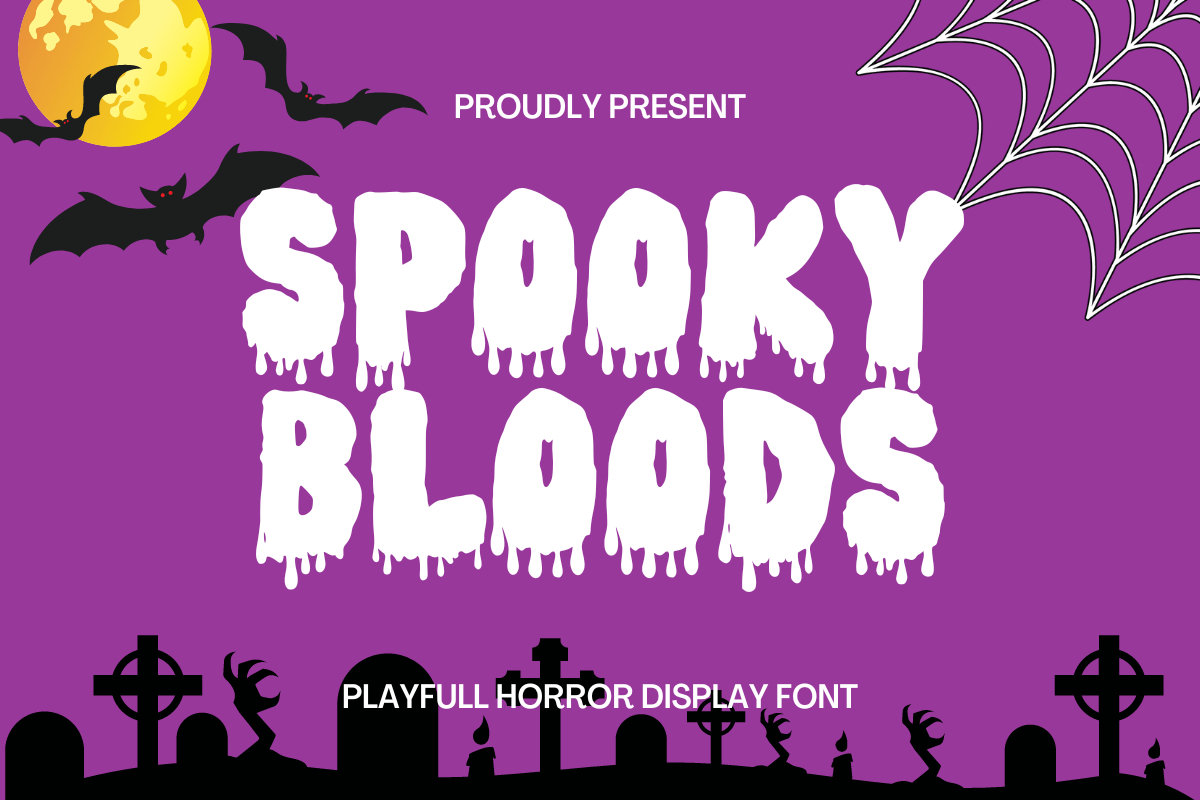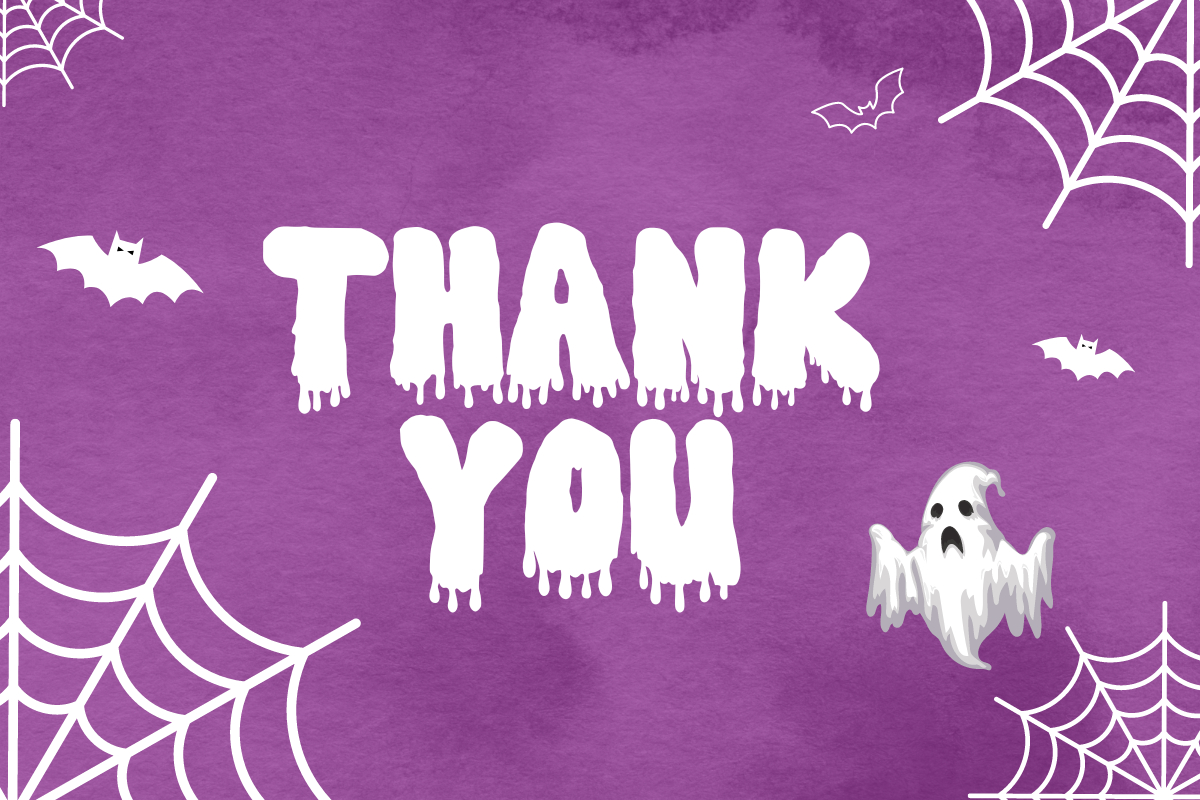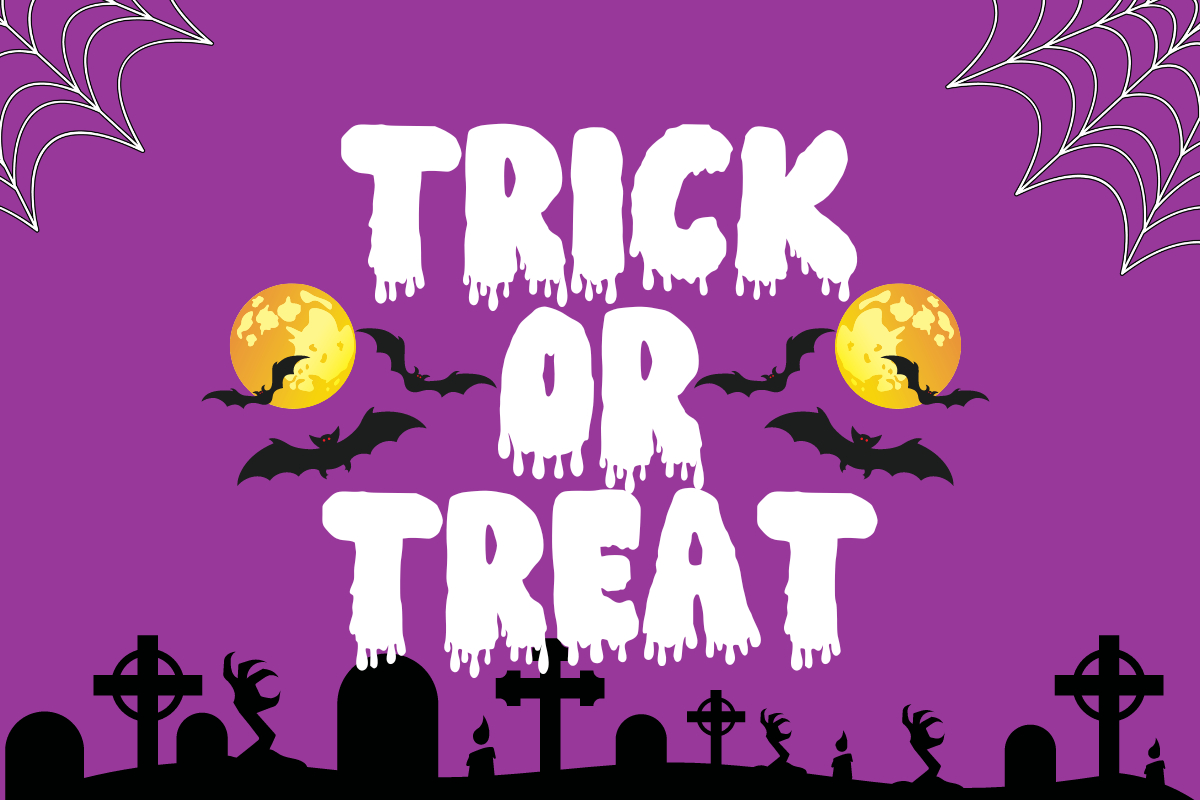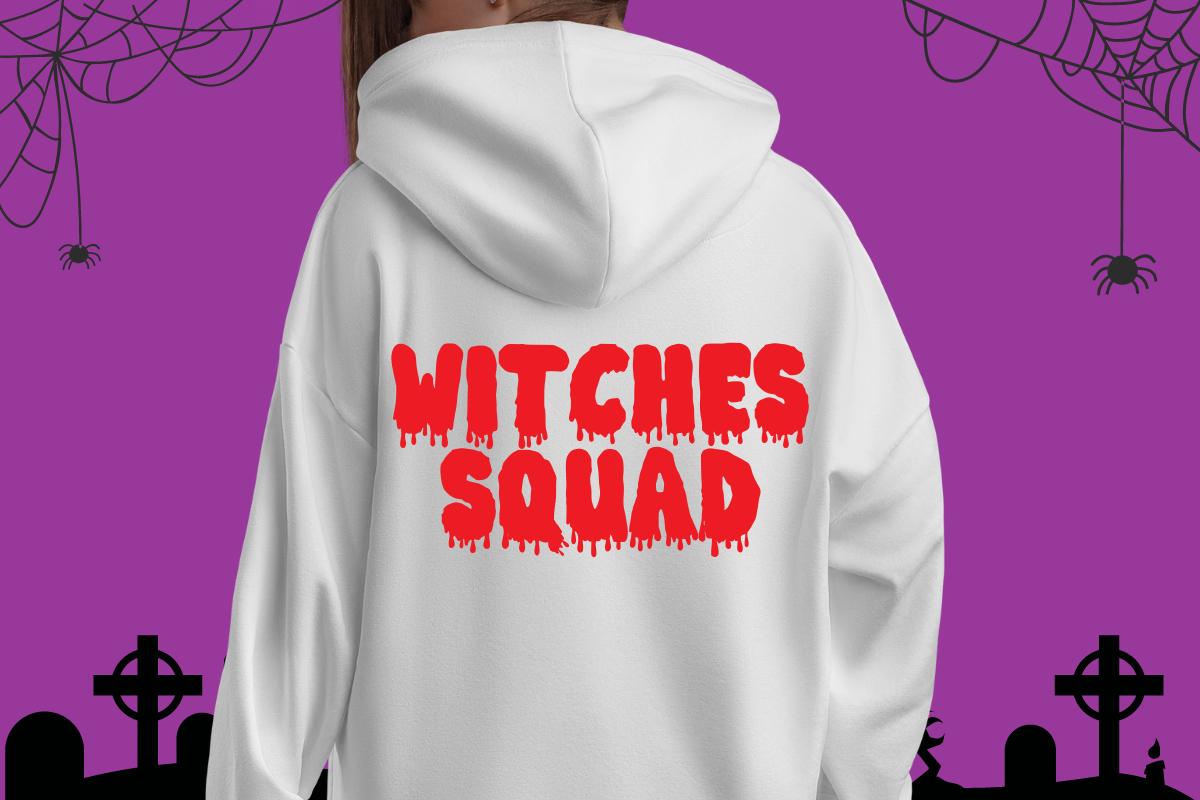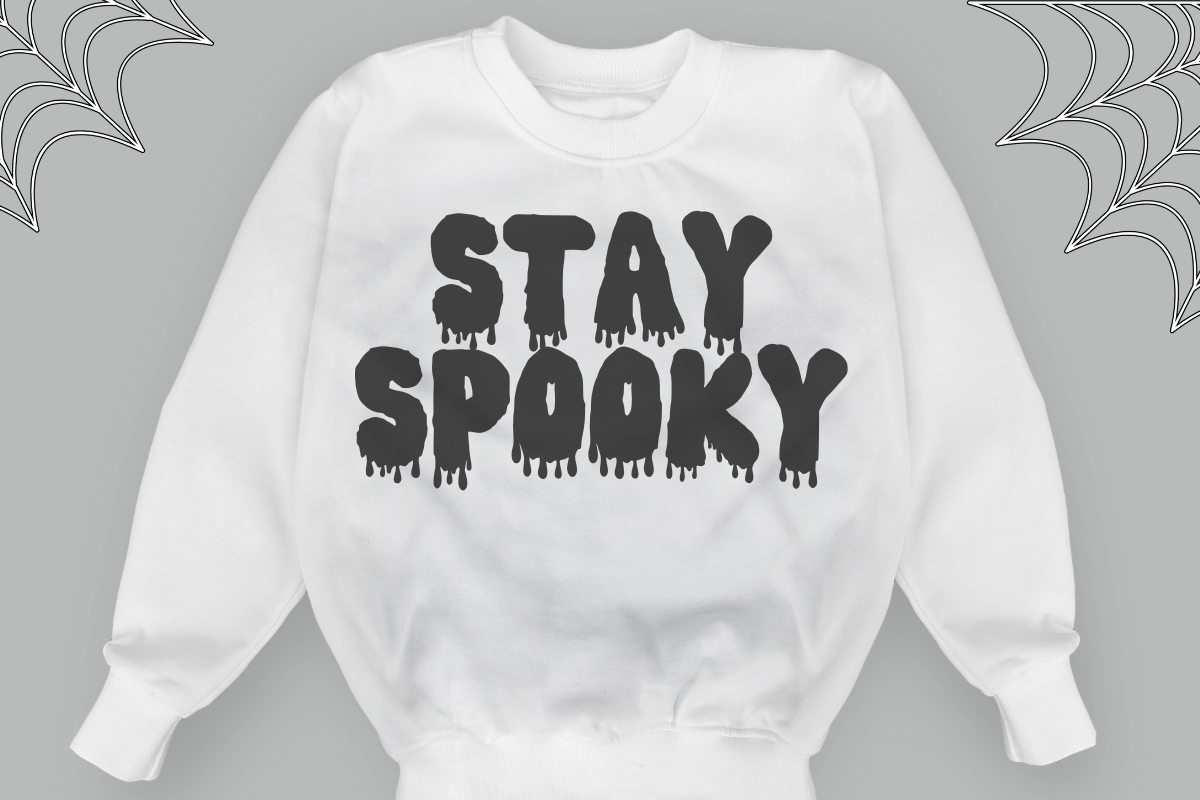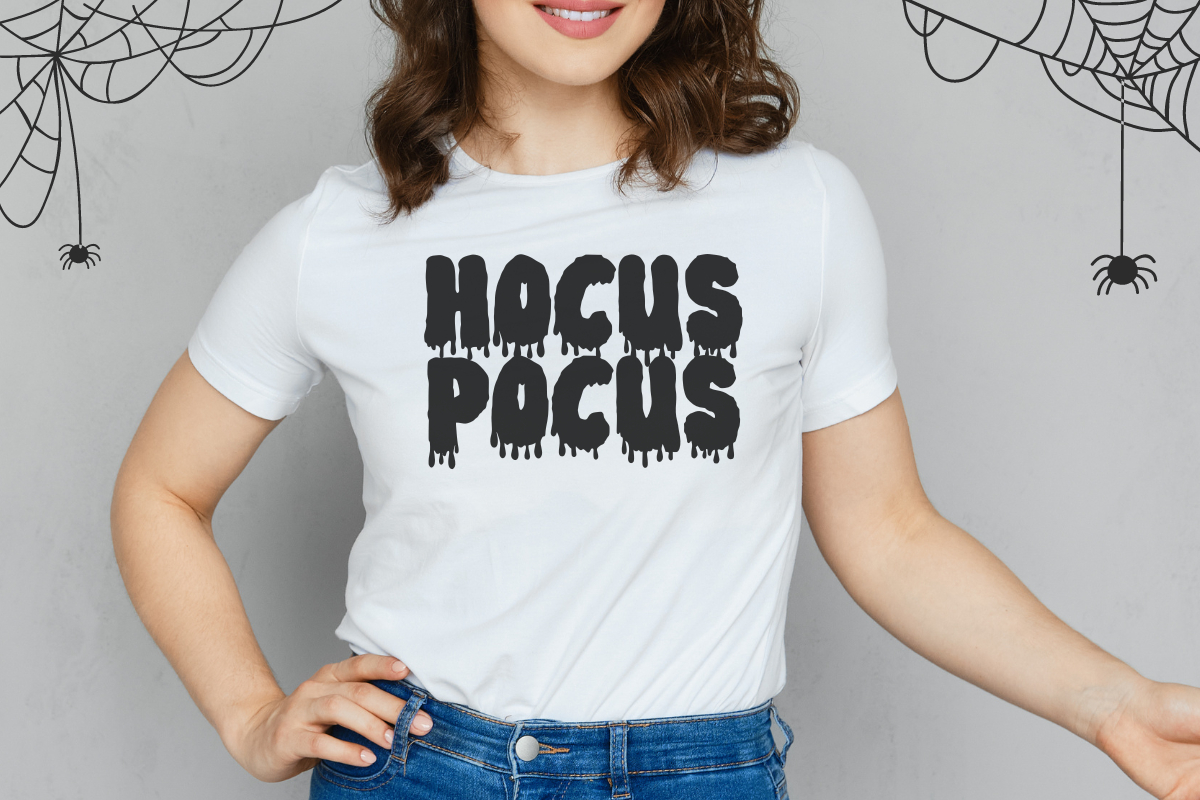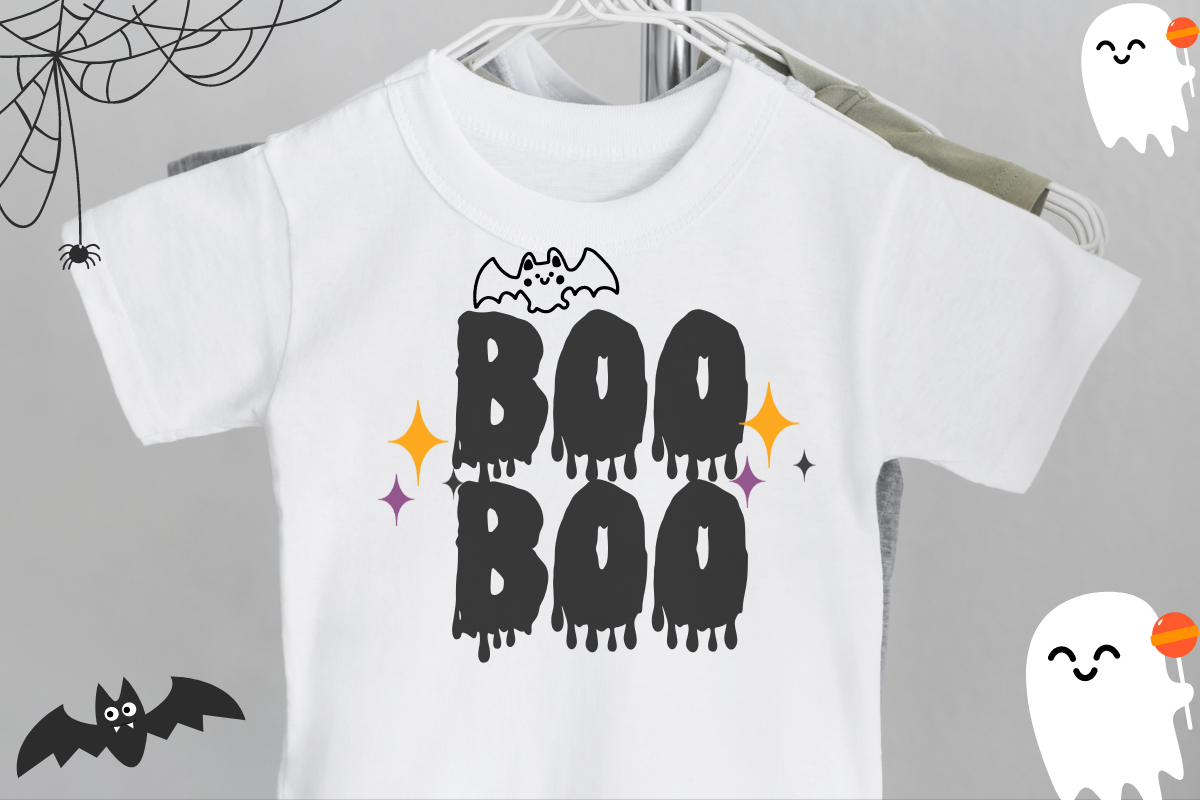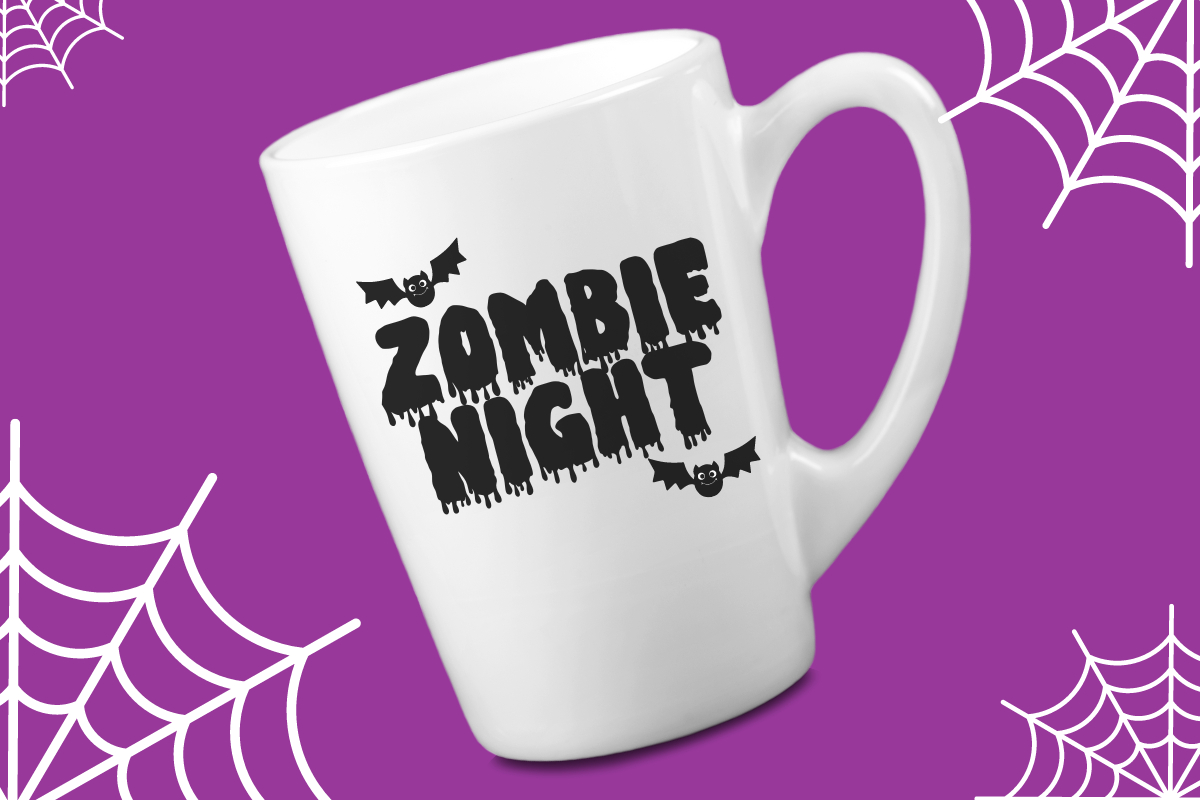
Spooky Bloods Font
Hi, Introducing Spooky Bloods – Halloween Horror Display Font
A Display font with a bold style. This font is inspired by the Halloween theme. with bloody letter characters. This font is very cool for crafts, craft businesses, printing, Cricut purposes, designs, t-shirts, clothing, apparel, stickers, mugs, tote bags, wall decorations, glasses, weddings, posters, planners, KDP, branding, business, and many more other ideas